Belarius binds astronomer’s book
Anna Von Mertens has written a deep and wide-ranging book on the life and work of Astronomer Henrietta Leavitt, using Belarius for all text.
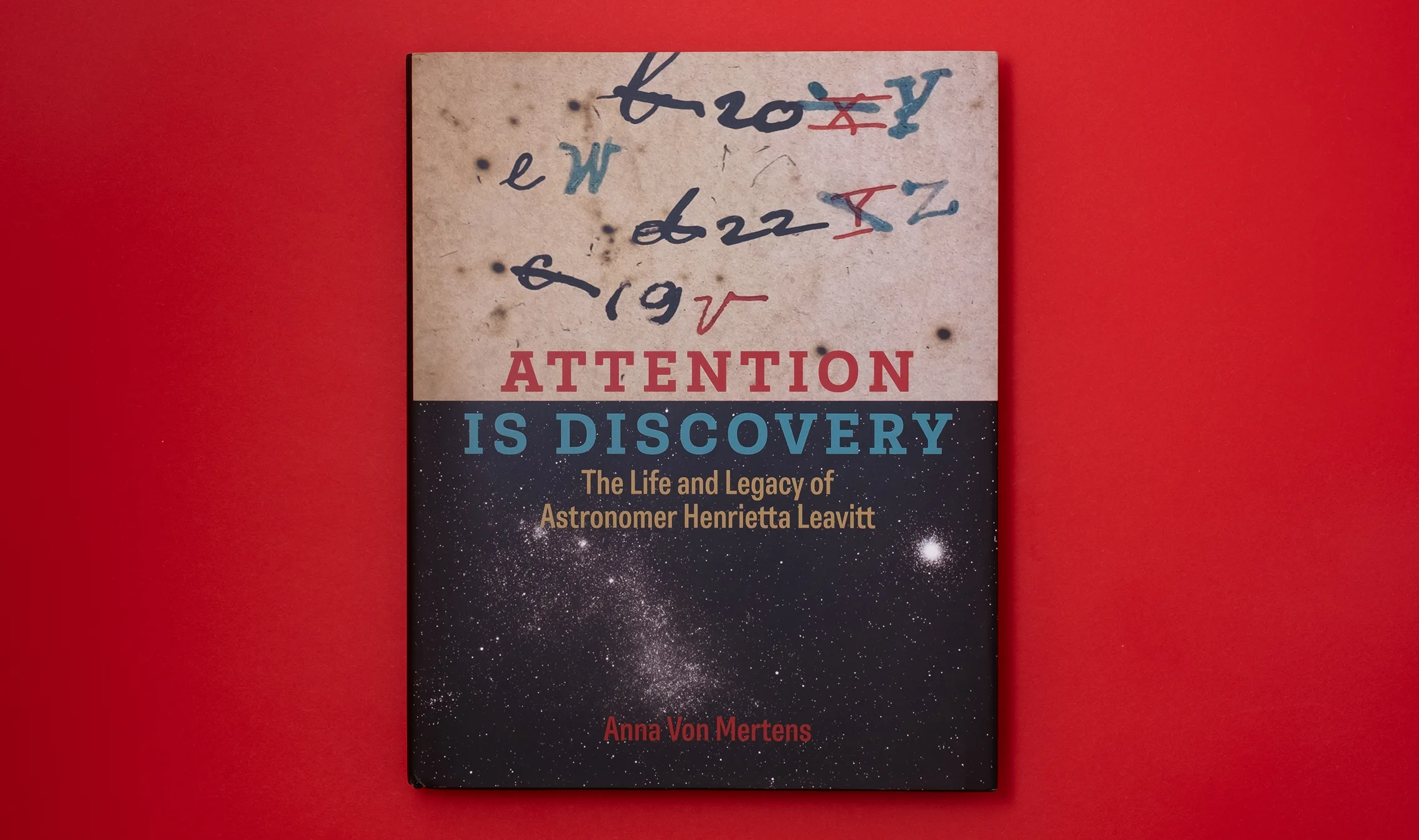
Few things can excite the mind and stir curiosity as the study of astronomy. It shows us our cosmic past, invites us to explore, and raises more questions than a lifetime could answer. Photons were flung from a star before we were born, and even before our earth existed. So the light we now see from distant galaxies is a form of time travel: we are seeing it as it was ages ago and light years aways rather than as it is now.
Anna Von Mertens has written an impressive book on astronomer Henrietta Leavitt, including her work, her methods leading to discoveries, her legacy, and her colleagues, especially females. In Attention is discovery: The life and legacy of astronomer Henrietta Leavitt, we are shown how Leavitt’s way of measuring cosmic brightness, distance, and trajectory deepened our understanding of stars and our place in the universe.
Designer John Kramer chose Belarius as the font family for the entire book — all main text and large headings, image captions and page numbers, chapter names, book cover, and even the imprint of Massachusetts Institute of Technology (MIT). Every word is in some form of the star-named typeface. (Quite apropos, we think.)
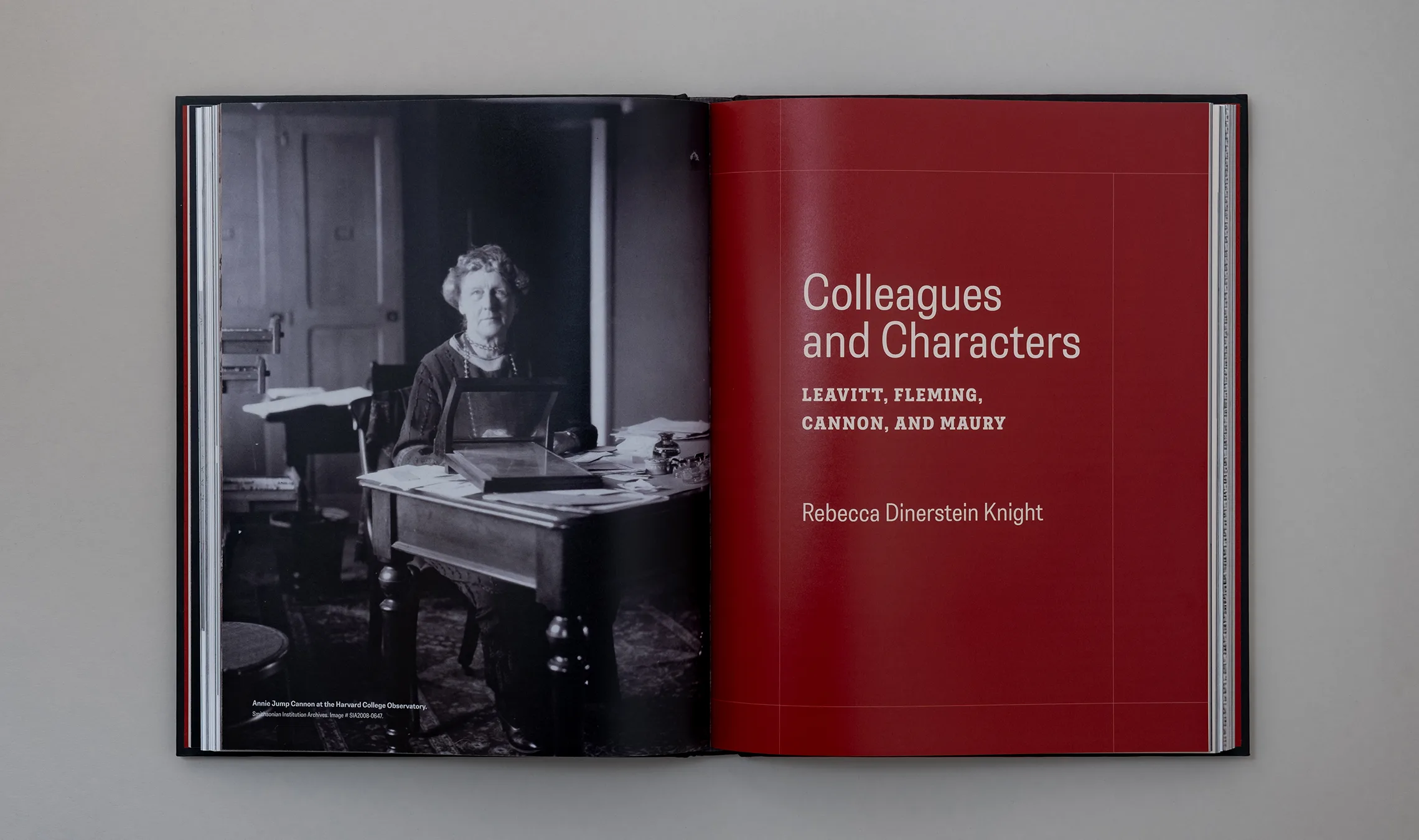
Designers take their layout inspiration from almost anywhere. Kramer reflects, “I often make up criteria for font choices, just to narrow it down a little. My first criterion for this project was that the main text be composed using a variable serif font, and this was for a rather obvious reason: the book’s content centers on the study of a kind of star called a ’variable’ because it varies in brightness over time. It’s how these astronomers were able to make the first reliable calculations about the size of the universe!”
Discussing the ideation phase, Kramer said, “Since this book deals with 19th-century science, I had originally imagined a complex title page mixing serifs and sans serifs in multiple sizes and treatments, but this never made it to the final design. But if I could use the variable font for all of that, so much the better.”
His commitment to making the design serve the text resulted in choosing the Belarius family for everything. “The ability to use variable fonts was the crucial criterion and really narrowed down the font options. Then when it became clear that I wanted the serifs to be square slabs, there was only one font that worked well enough: Belarius. I’d never used a variable font for a full book so I was a little nervous, but I’d used both Adelle families for multiple large projects, so I knew I could trust TypeTogether. Belarius it was!”
Kramer also noted more of Belarius design and layout strengths. “During the design and composition phases, Belarius was a life-saver in many ways: for enhancing the readability of my full-column serifs; manipulating the widths for my narrow justified columns of sans; managing the weight shifts of the book’s very long captions; and finally, finessing the minute details of the cover type.”
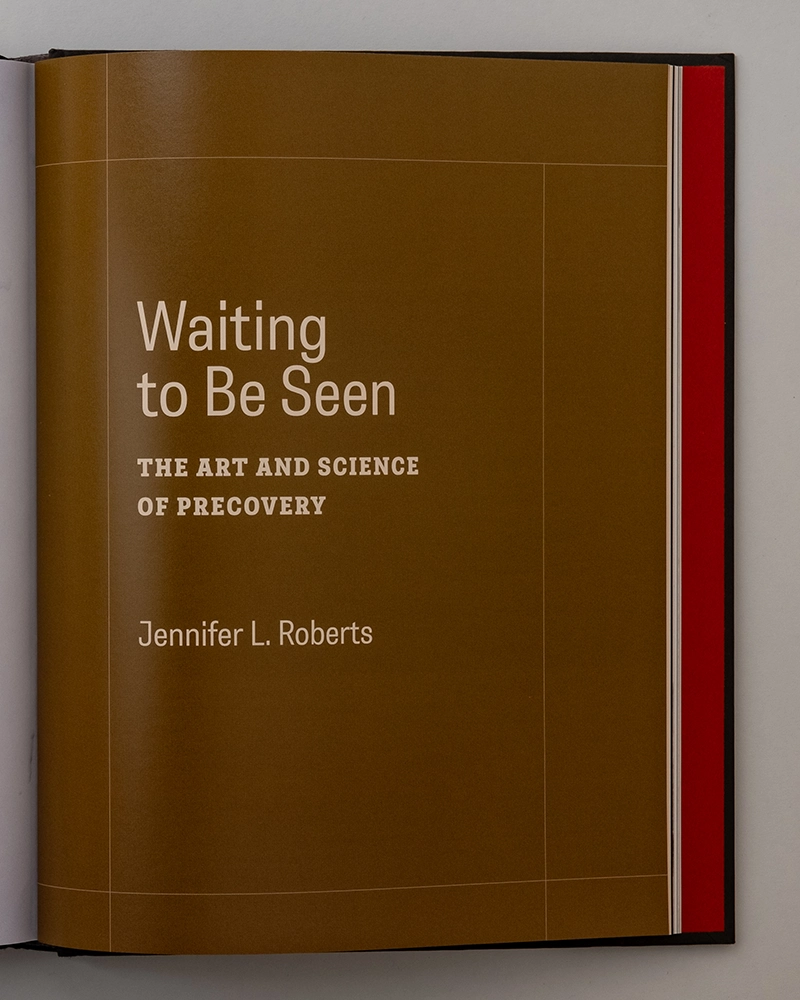
Belarius is a three-axis variable font family (or 90 static fonts) that shifts from sans to slab serif, from condensed to expanded widths, and includes every possibility in between. With serifs that can appear and lengthen at will, Belarius’s baritone voice opts for poignancy instead of the overly quirky nature of poster slab serifs. Its variable font format is modern tech for discerning (and often demanding) work, making it a multitool for magazines, digital editorials, book narratives, and packaging design.
The cosmic beauty and scientific revelations within Attention is discovery: The Life and Legacy of Astronomer Henrietta Leavitt reflects the actual cosmos, while Belarius’s yesteryear purity imbues it with a suave, polite, and genuinely modest manner for such a deep subject.